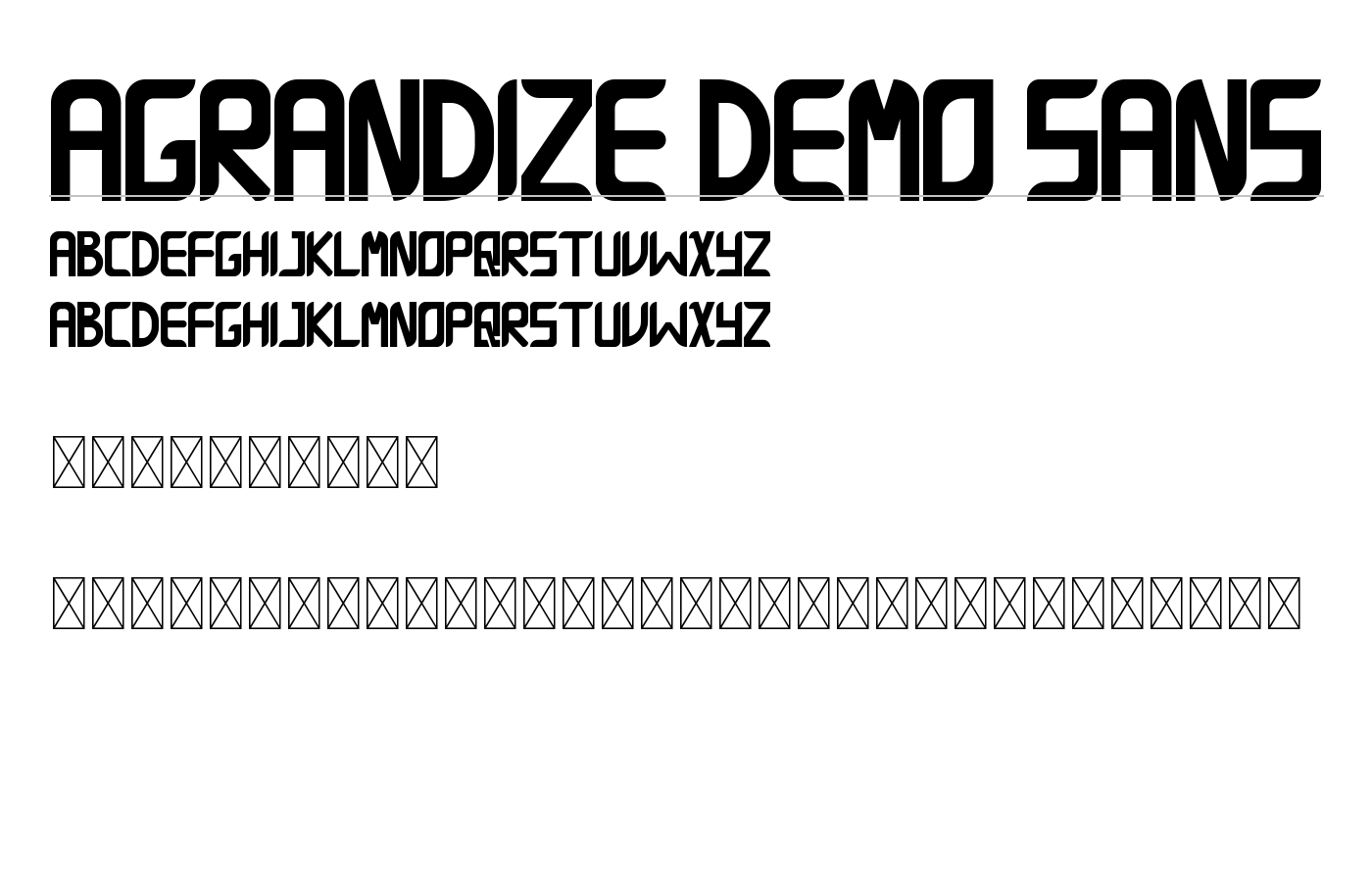
Agrandize Demo Sans is a bold and condensed sans serif font with a distinctly modern, geometric style. Its tall, narrow letterforms feature sharp corners and unique angular details that give it a futuristic and dynamic personality, making it ideal for logos, headlines, and branding that seeks a strong and contemporary look. This font works best in large sizes where its bold shapes and sharp edges can make a commanding visual impact.
Agrandize Demo Font
About Agrandize Demo Font
| Font family | Agrandize Demo Font |
| Designer | Yasri Ainun N & Sarah Suci P |